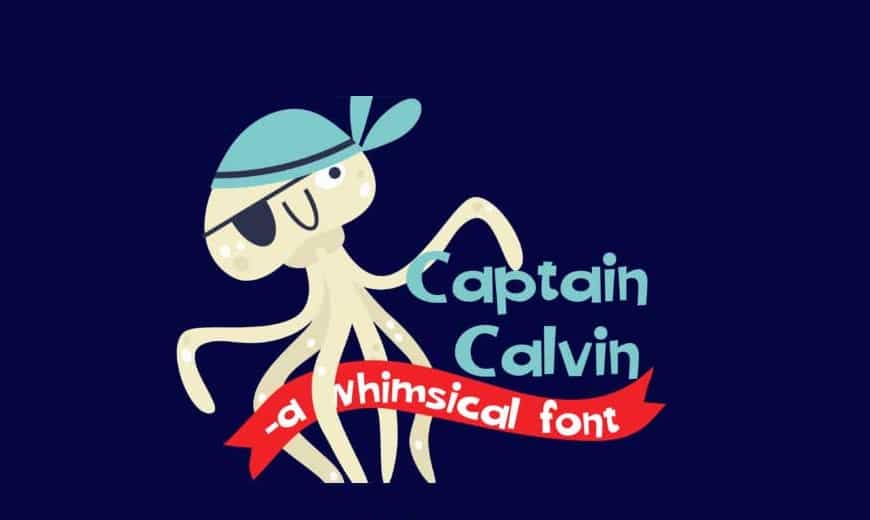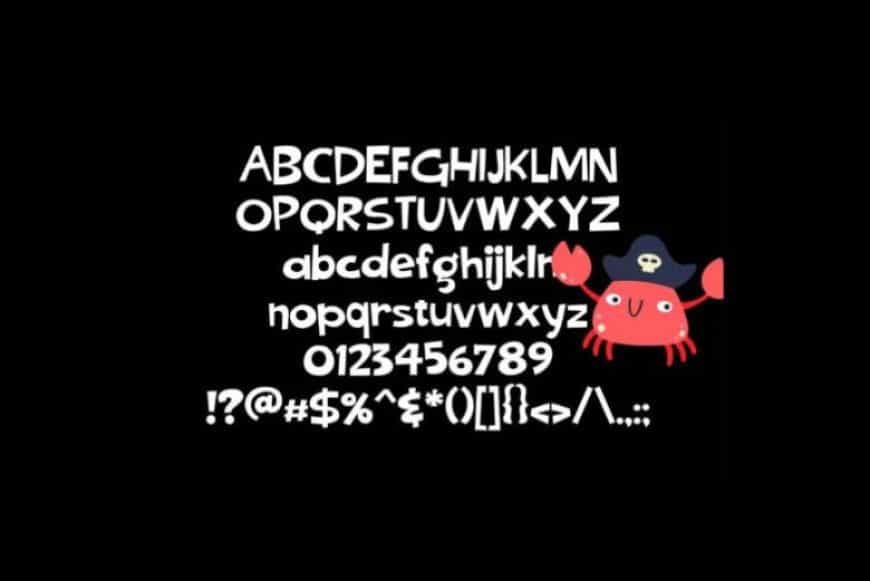
Captain Calvin is a cute sans-serif family font that makes a perfect candidate for headline-like titles, show-text, web banners and whatever else. Let its playfulness inspire you!